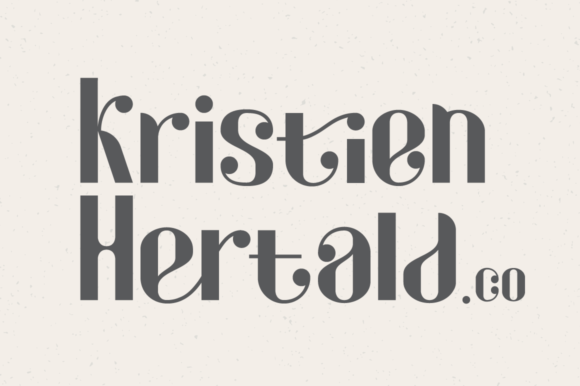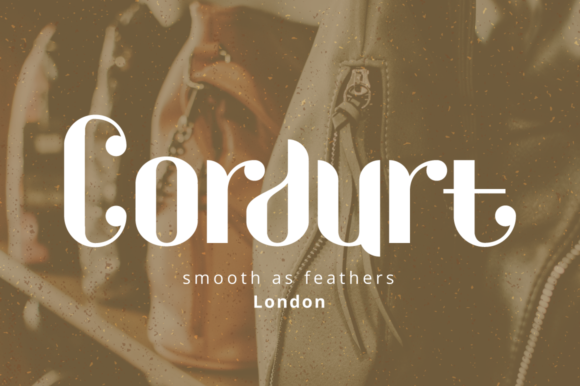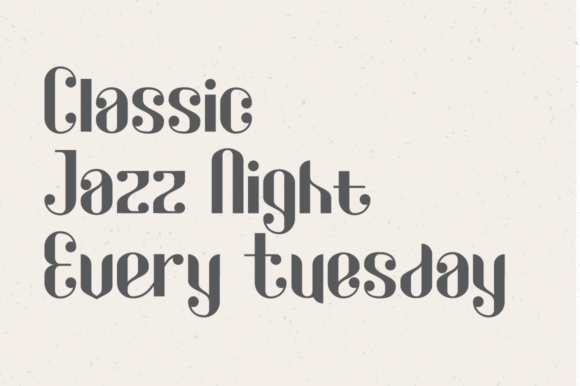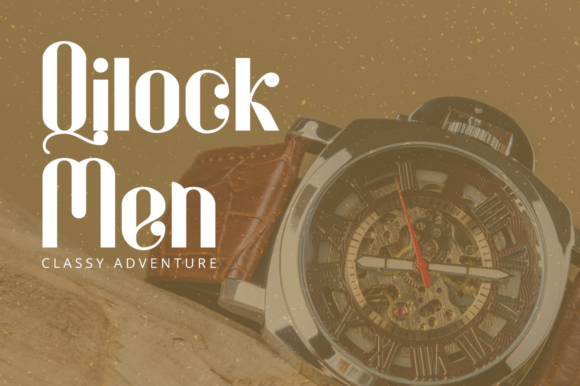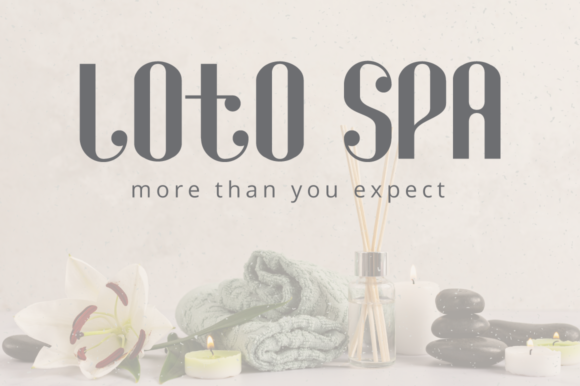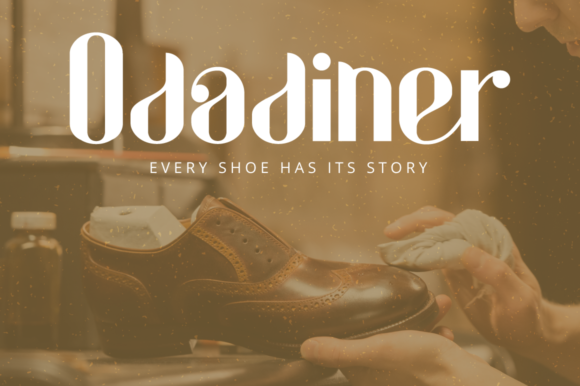
Introduction to Qartiant Font
Qartiant is a stylish and elegant display font with clean and neat characters.
It sends a powerful message and the typeface can be successfully used in logos, magazines, posters, branding, websites, greeting or wedding cards and much more .
Key Features of Qartiant Font